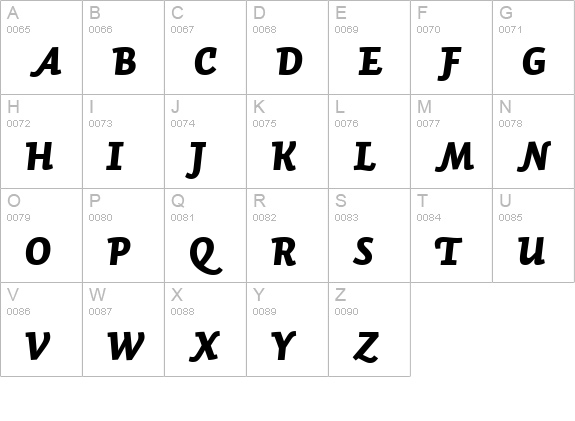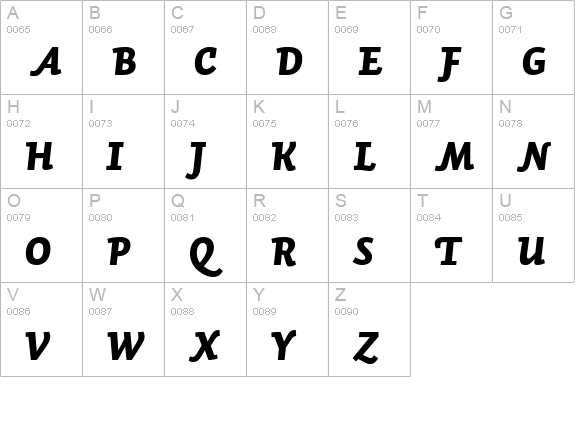
Auto 2 Black Italic LF Font Details
Auto 2 Black Italic LF is a maximum-weight, dramatic, italic variant in the Auto typeface family \xE2\x80\x94 well suited to maximum-impact headlines, posters, and packaging.
The Auto 2 Black Italic LF font exudes a modern and sleek aesthetic, perfect for adding a touch of sophistication to your design projects. Its bold strokes and italicized style make a bold statement while maintaining a sense of elegance. This versatile font is ideal for headlines, logos, and other display purposes where you want to make a lasting impression. What sets the Auto 2 Black Italic LF font apart is not only its striking appearance but also the fact that it is available for free download at FontsMarket.com. This means you can elevate your designs without breaking the bank, making it a valuable addition to any designer's toolkit. Don't miss out on the opportunity to enhance your projects with this stylish and impactful font. Download Auto 2 Black Italic LF today and see the difference it can make!